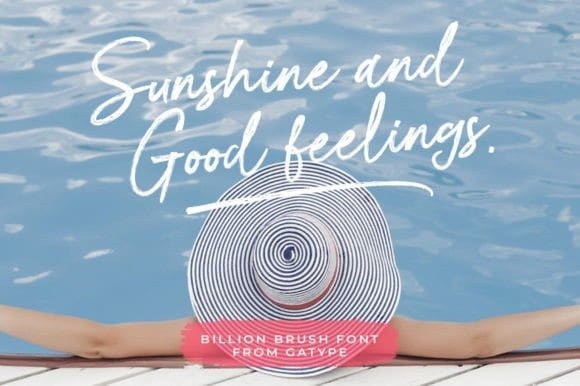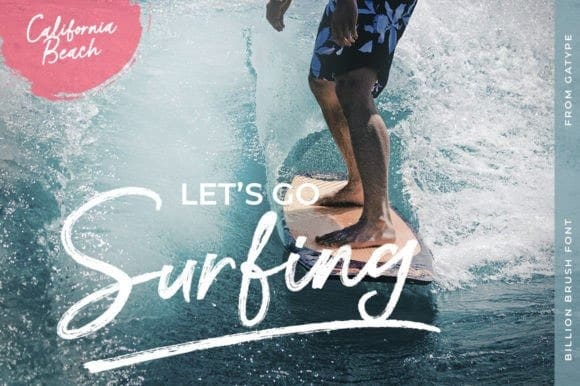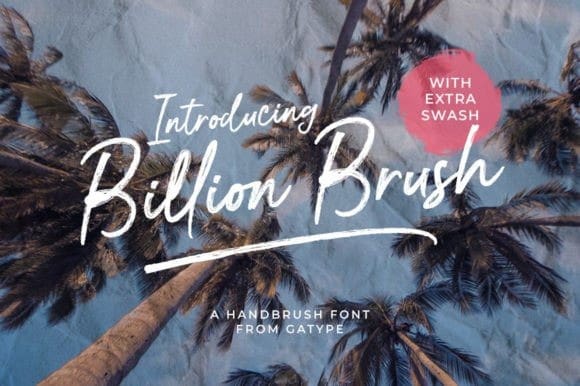
Billion Brush Font
Billion Brush Font, is a handwritten font with a rough texture, the process of creating type by stroke with strong, fast strokes on paper to create the rough texture that is characteristic of BillionBrush, so it is a font with a rough, dry brush style.